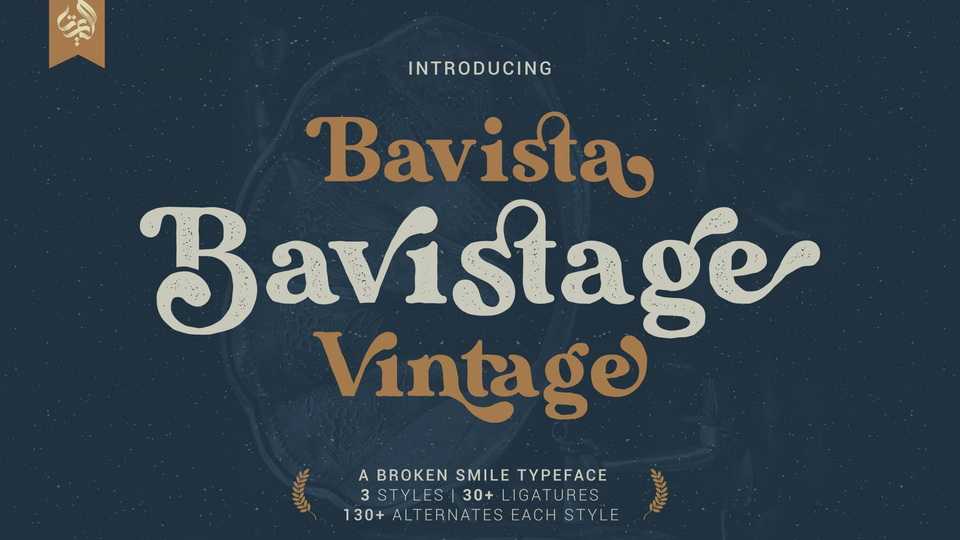
Download Bavistage font, a broken smile typeface, inspired by the vintage vibe. Bavistage gives you past memories, disappointments and happiness at the same time.